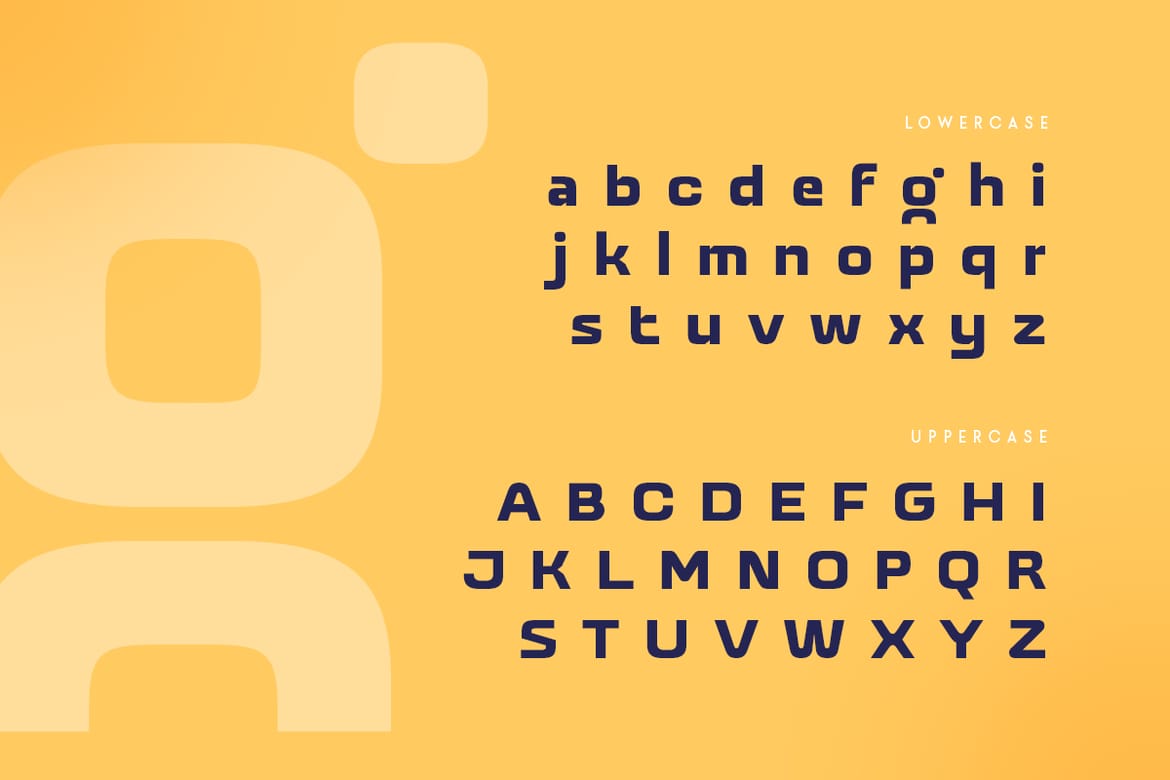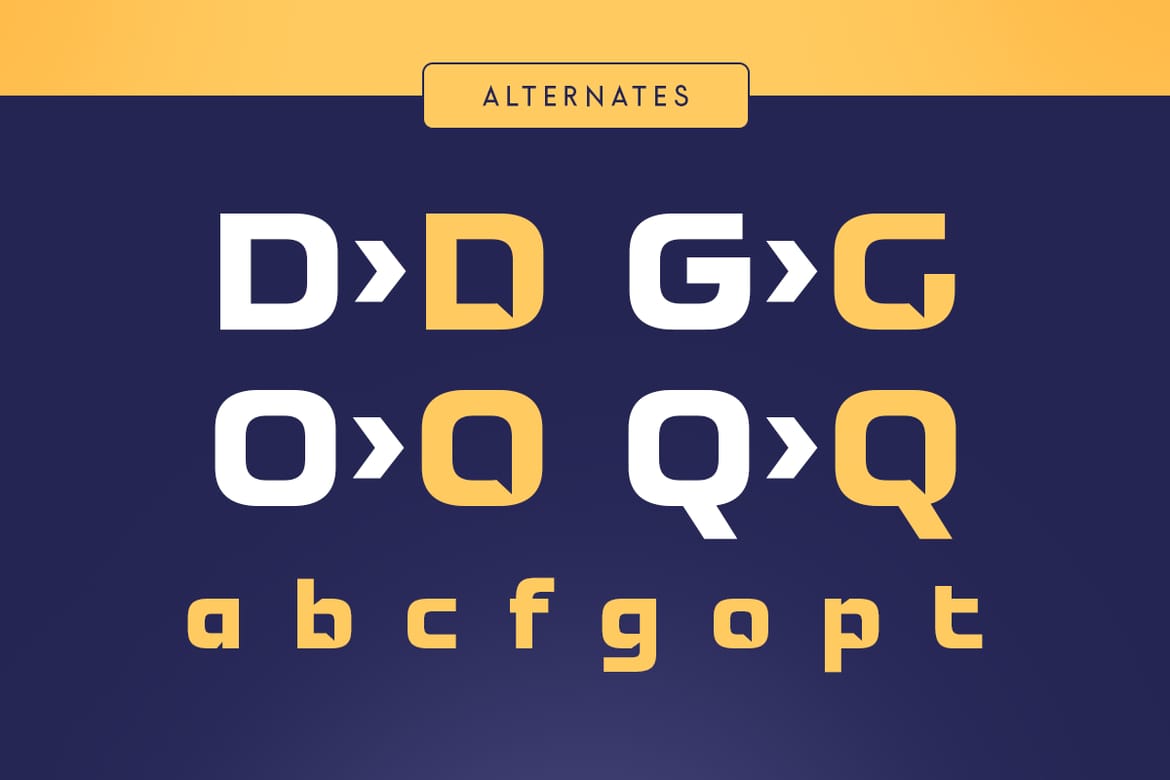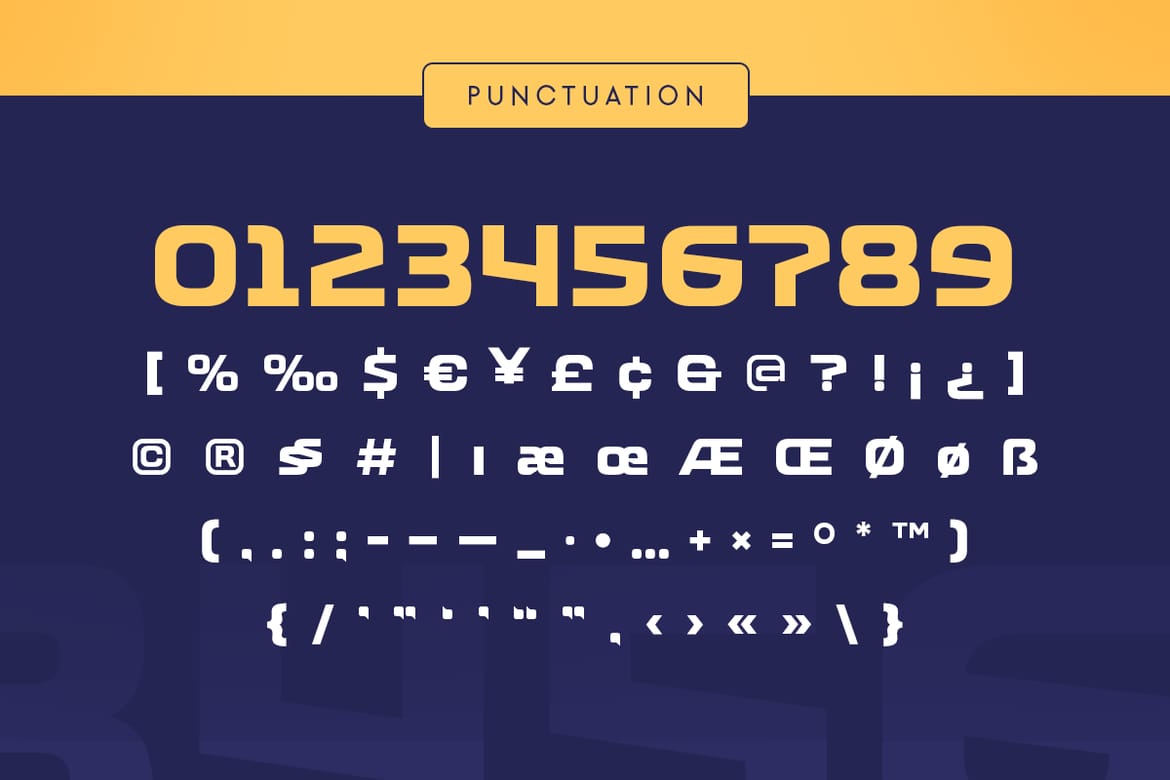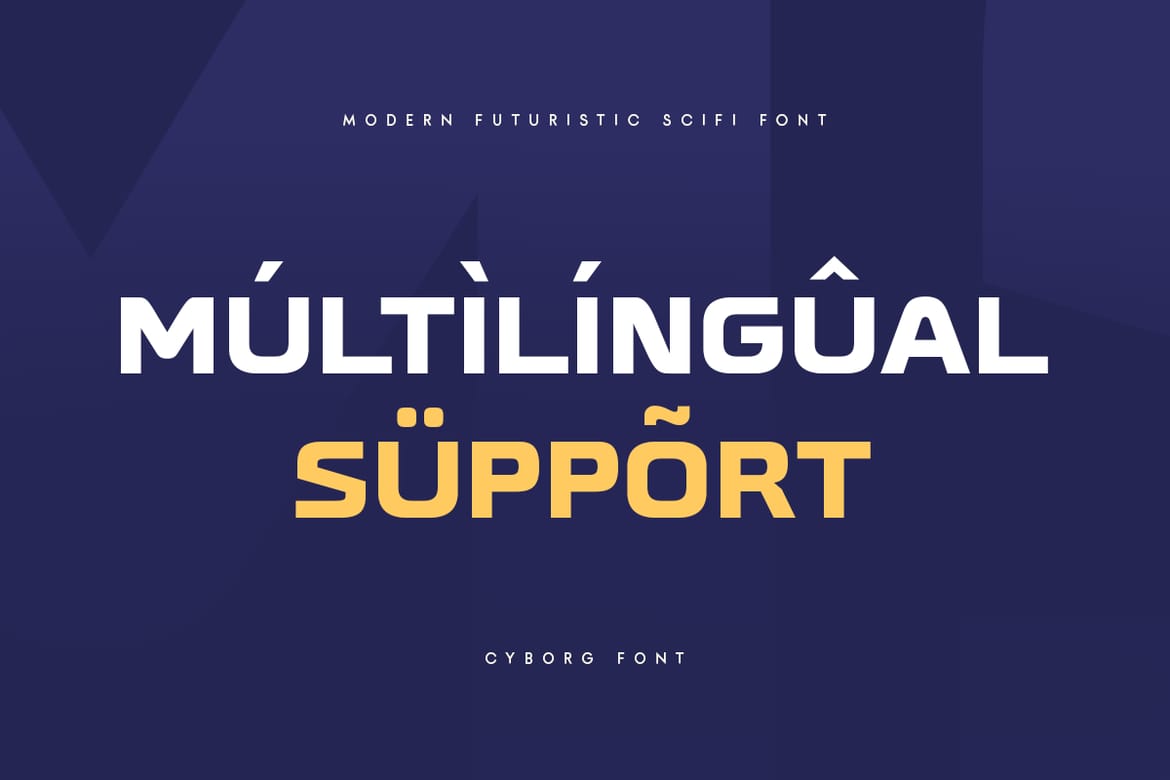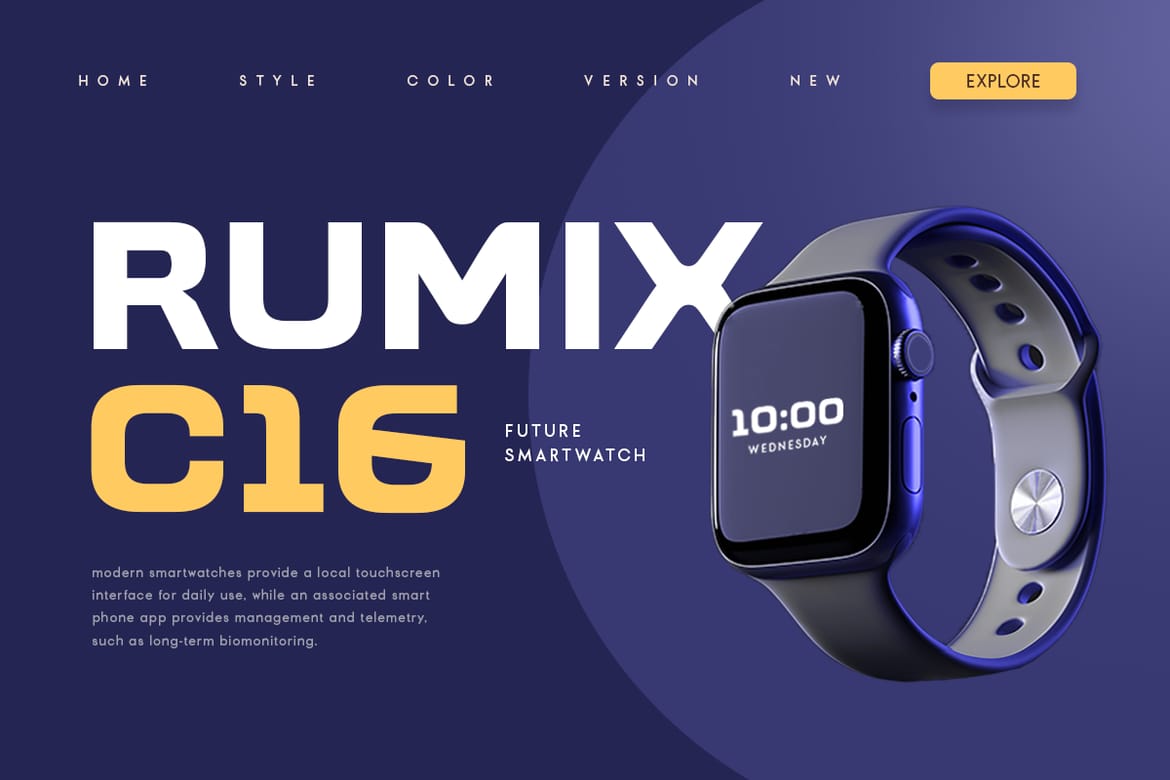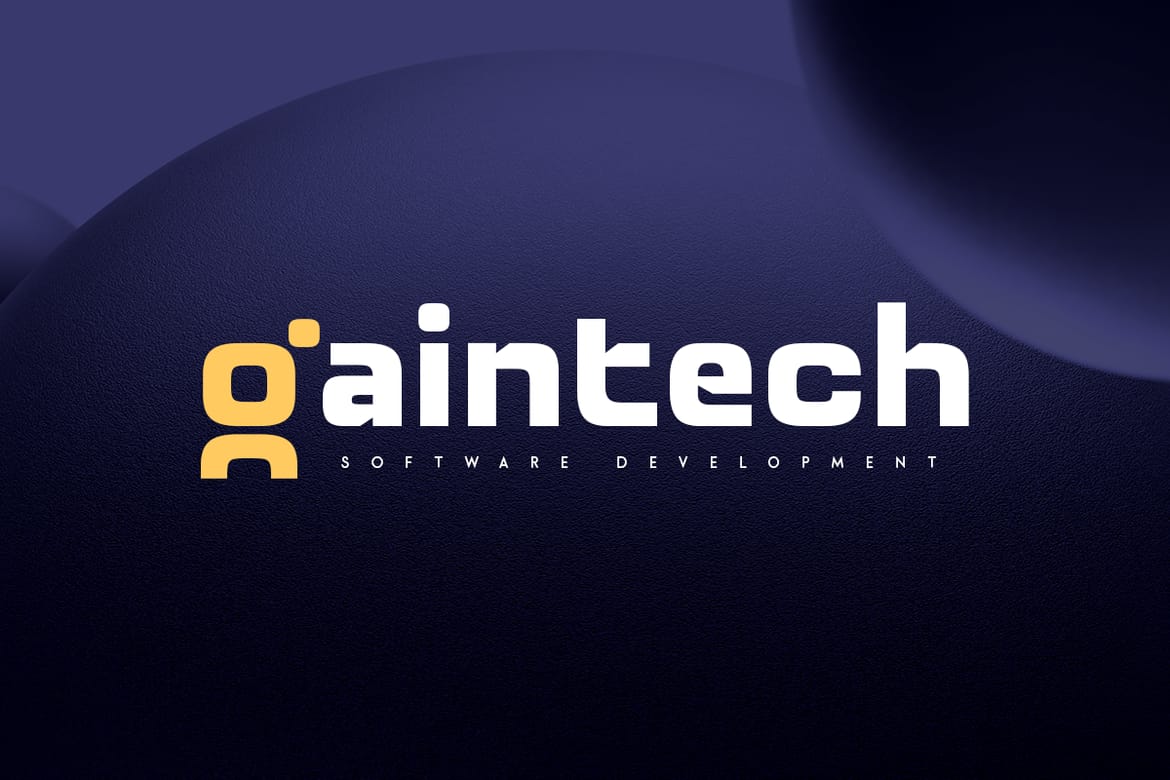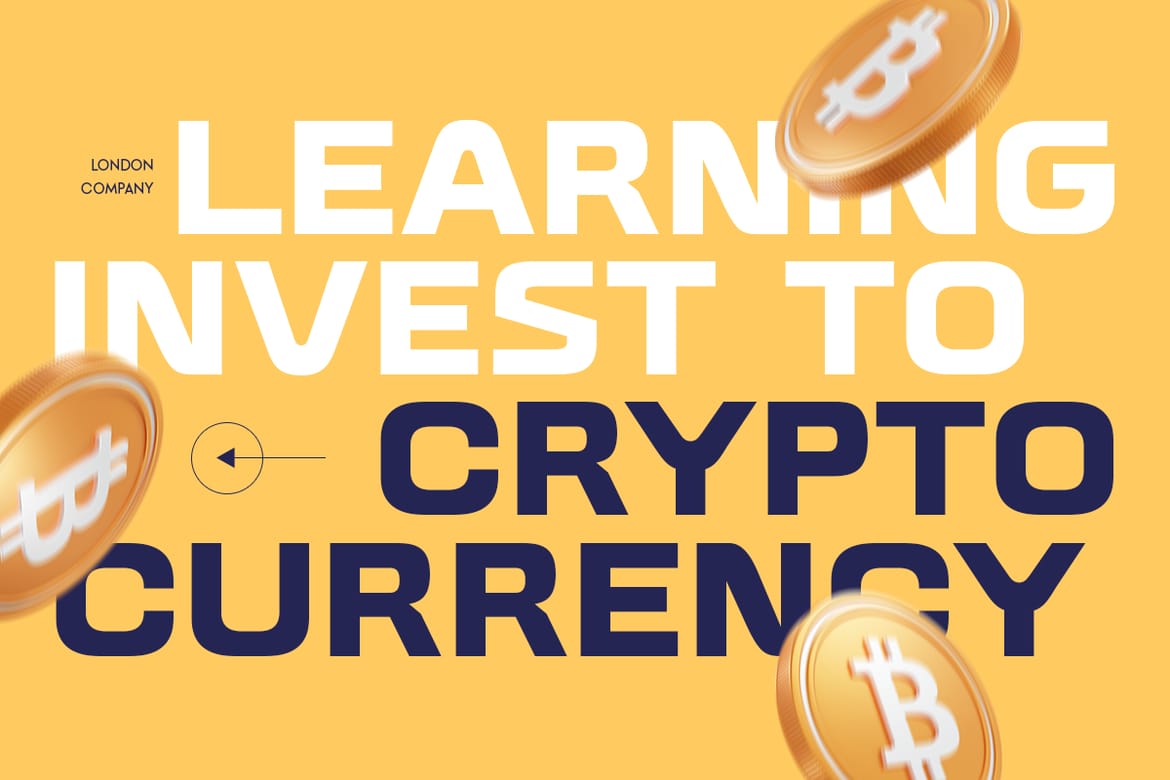
Cyborg is a Futuristic Sci-fi Font created specifically for Sci-fi, Modern, and Technology designs. Its unique, futuristic styles make your typography stand out, ideal for Robotic, technology, film, and Sci-fi themes. Modern aesthetics bring a tech-inspired feel to any project, perfect for expressing your main ideas.
Cyborg Futuristic Sci-fi Font features:
Sleek, futuristic characters designed for Technology-themed creativity
Includes special Technology and Sci-fi characters
Perfect for headlines, posters, branding, and digital art
Enhance your designs with Cyborg's cutting-edge style and make your projects shine. Enjoy the futuristic touch Cyborg brings to your work!
- Robotic futuristic sci-fi font
- Tech alternates for racing and sports